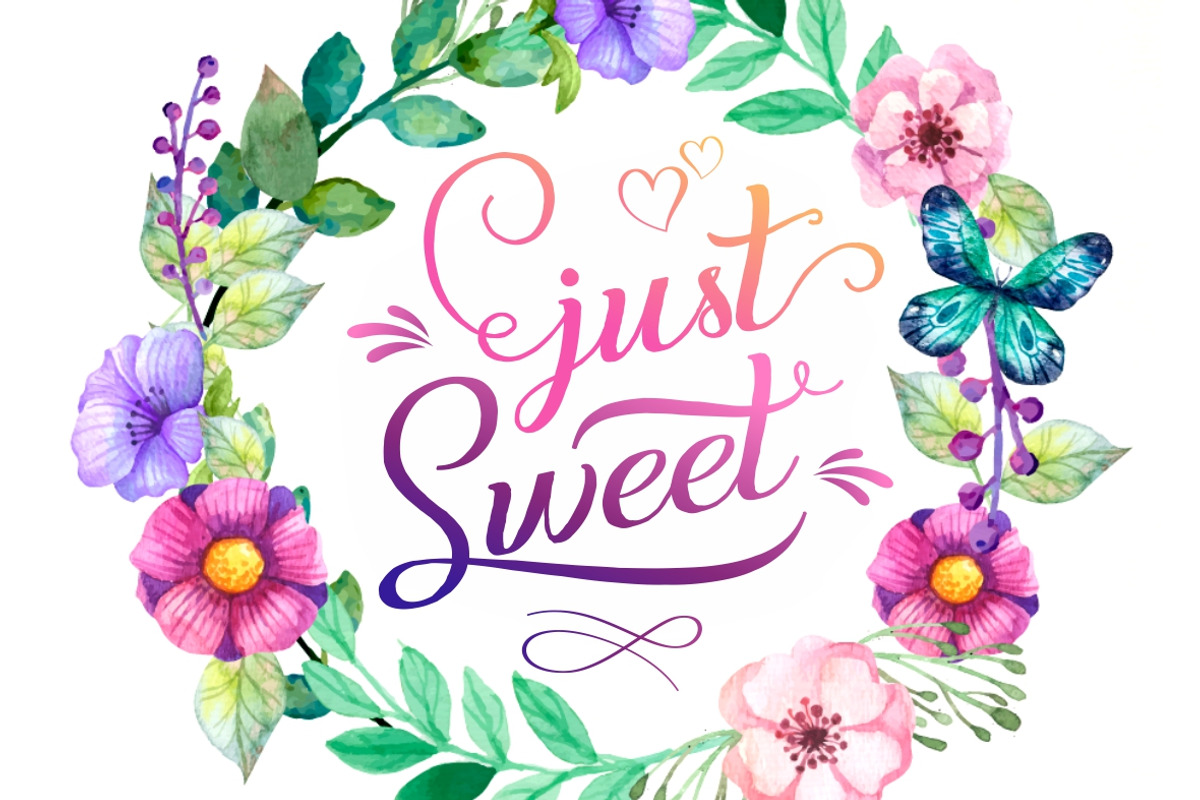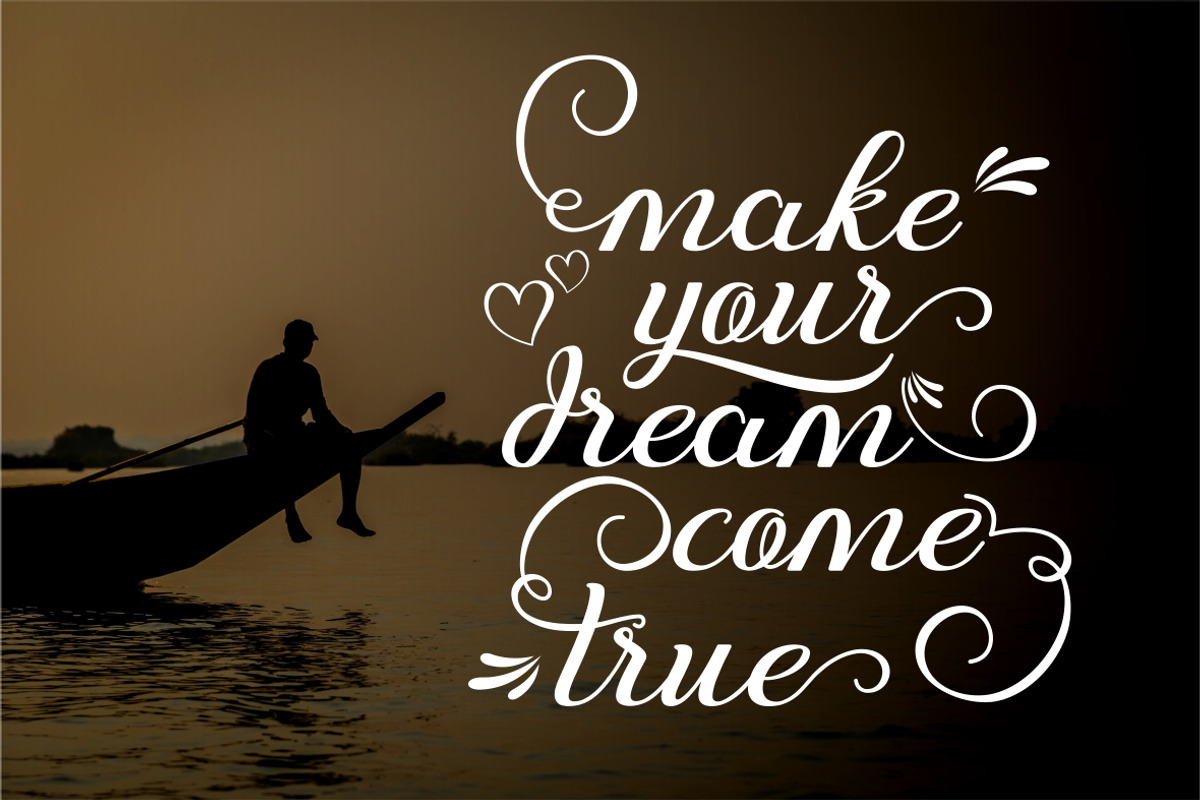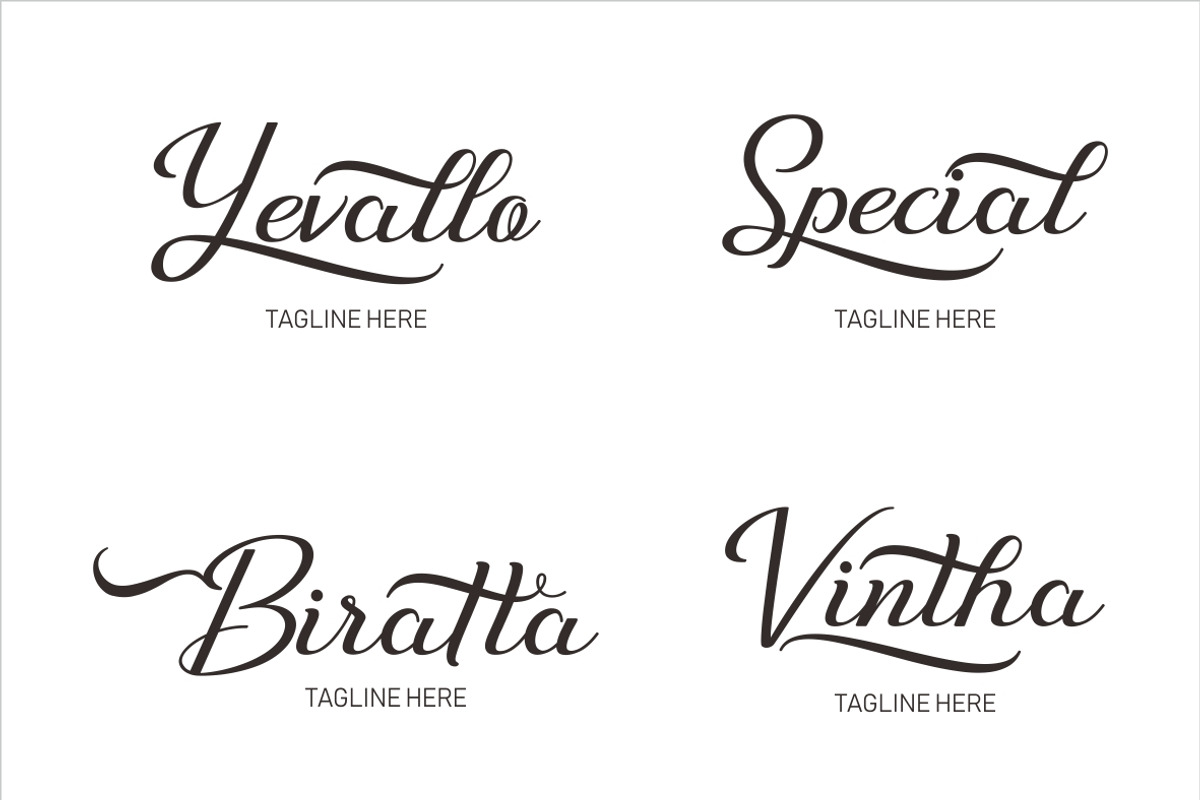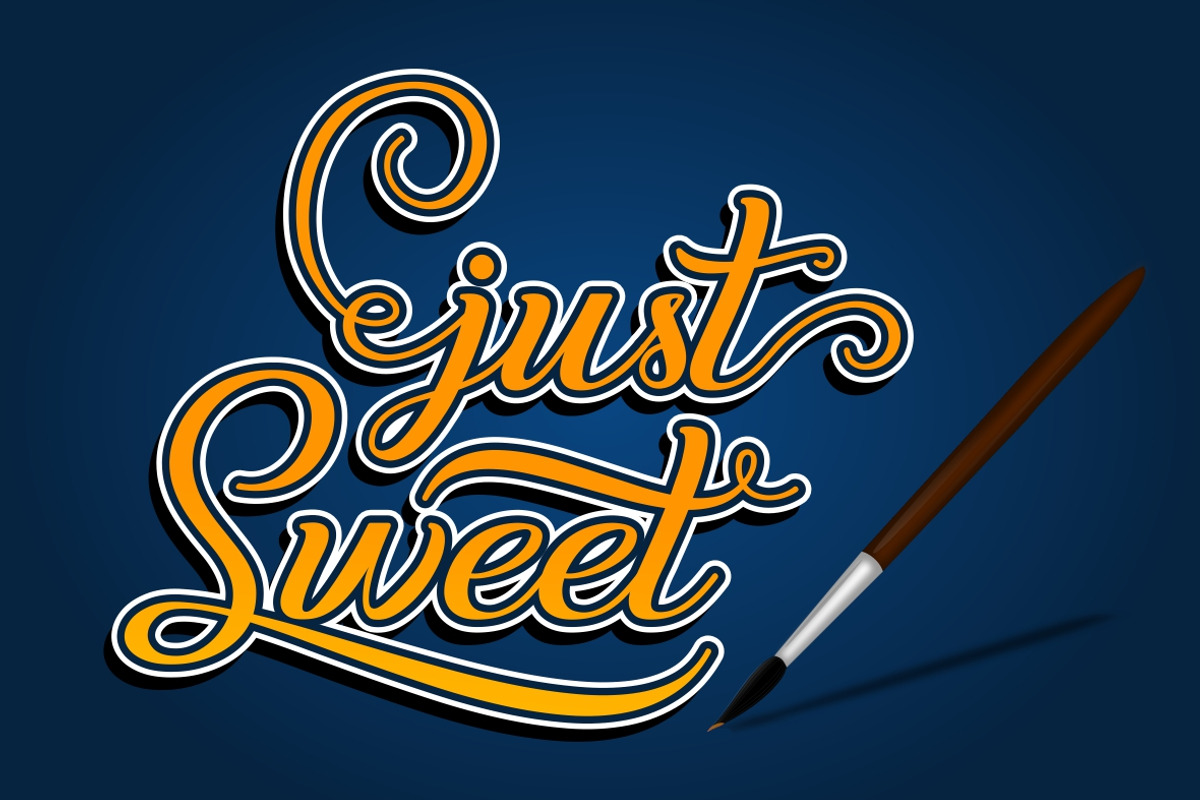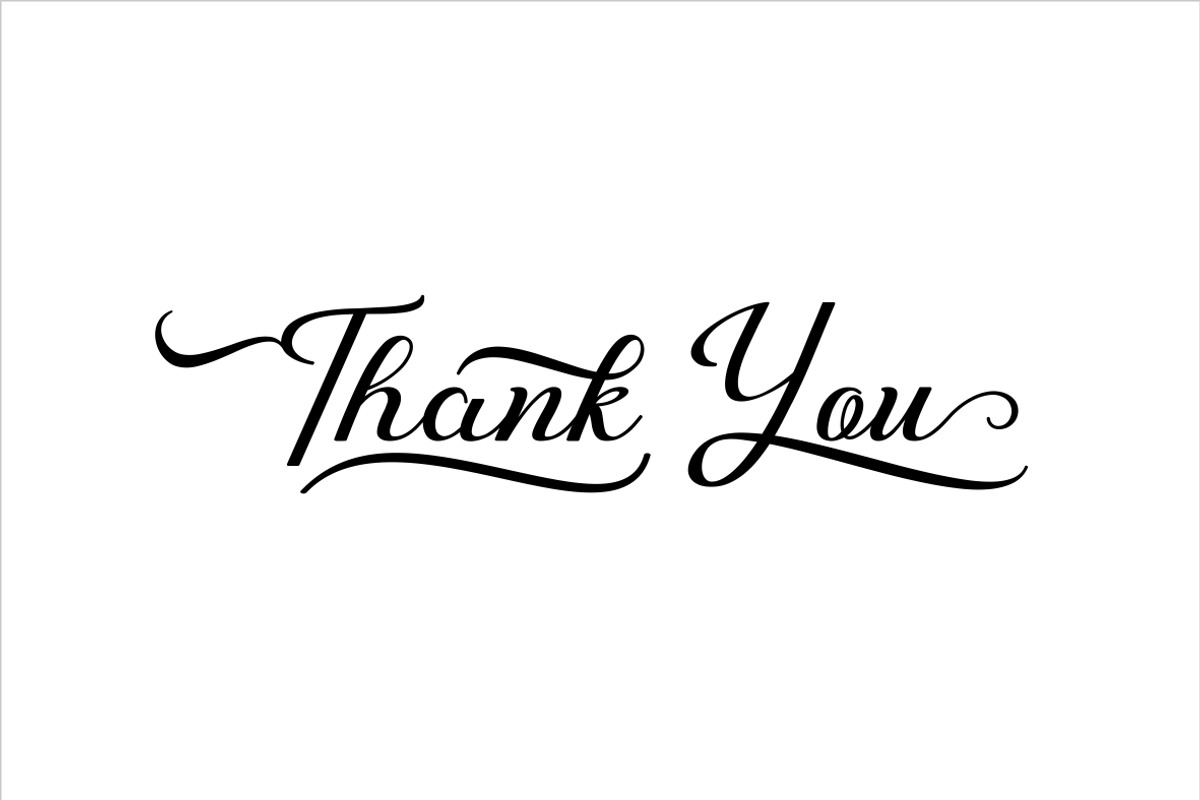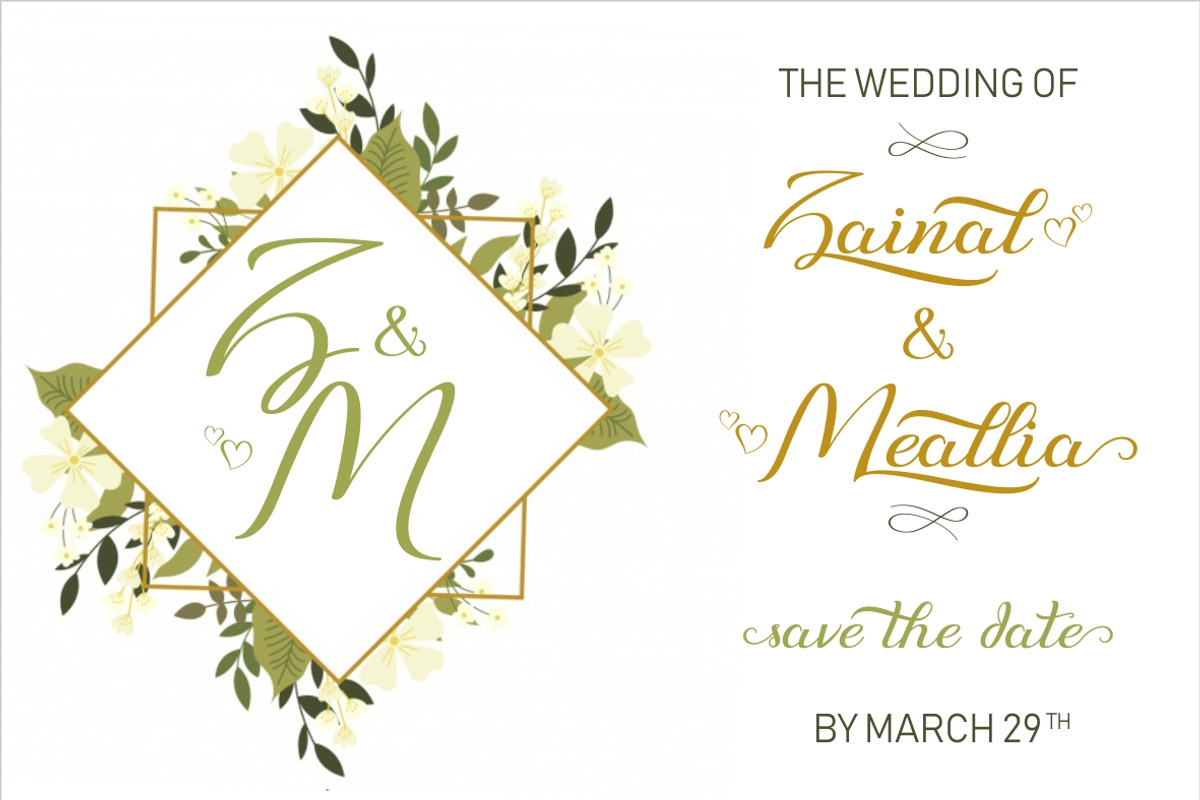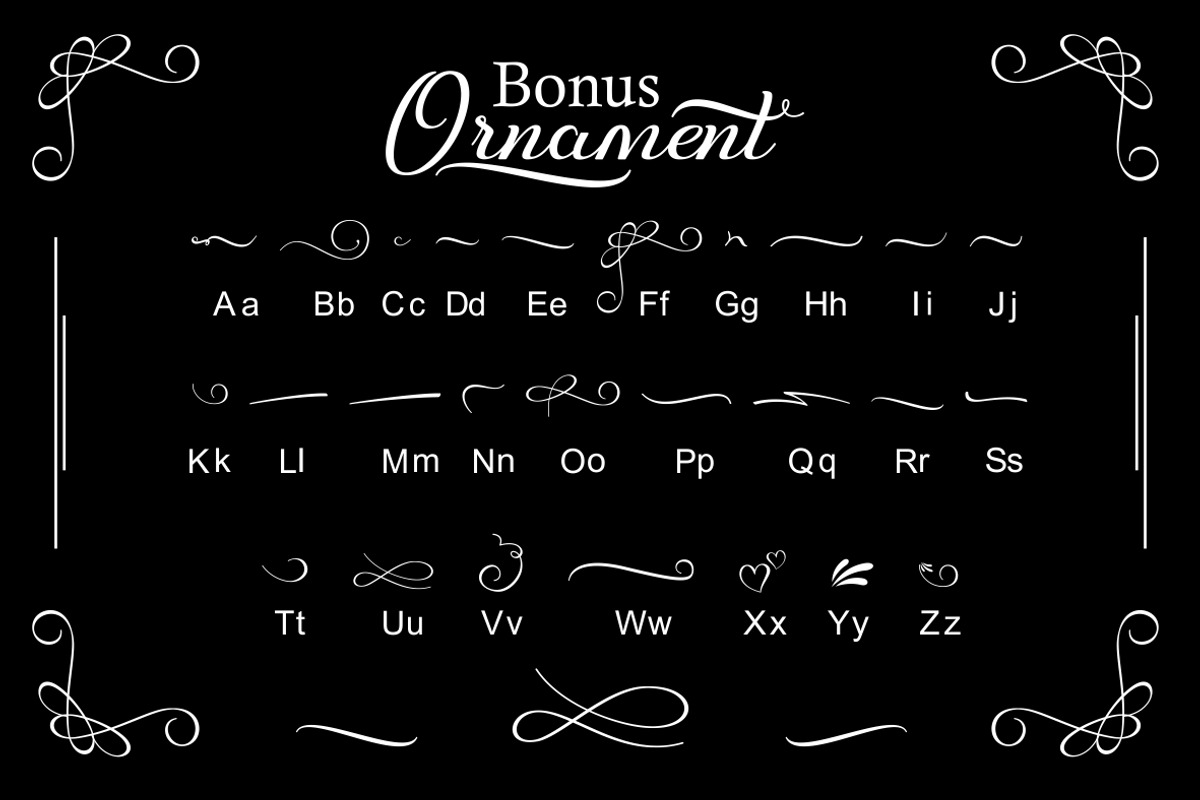
Just Sweet Font
Just Sweet is fresh & modern script with a handmade calligraphy style. It features decorative characters and a dancing baseline!It works great for many different uses, such as invitations, greeting cards, branding materials, business cards, quotes & posters, lettering and much more.